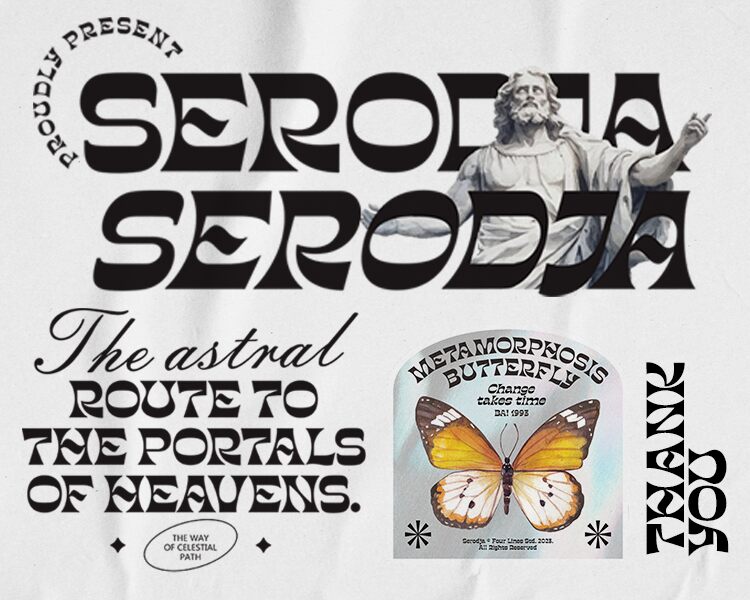
Serodja font family is a free retro serif font by Four Lines that instantly combines the beauty of the past with that of the present. Its geometric build, decorated at parts, brings an artistic feel that explodes through its bold contrasts. And since retro fonts always have something new to offer, you’ll notice that Serodja’s letters are dynamic, ensuring that whatever message they share never gets passed as monotonous. This font family holds 2 font styles, and some of its unique designs even feature unusual yet stunning curves for letters that the reader and the designer can enjoy.
The tool you use defines the work you create, making Serodja a recommended choice for those who look for distinctive innovative designs in contemporary applications. These include branding and headlines texts. Introduce engaging social media posts by mixing both styles or use the typeface for UX and UI design, adding short texts to describe icons or including highlights for promo posts or websites. A visually clear retro font is splendid when used for headlines, especially since none of us can resist this easy read!